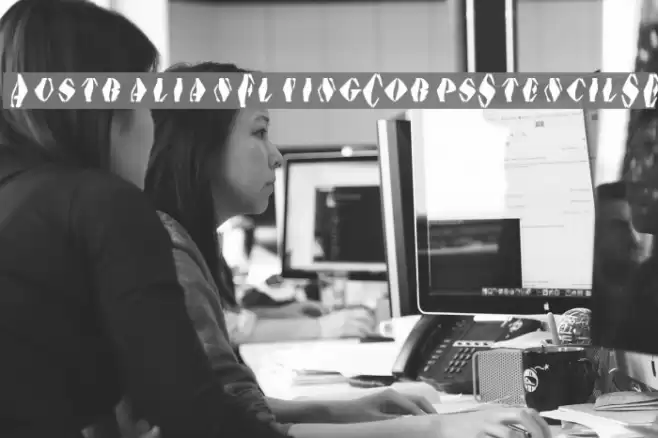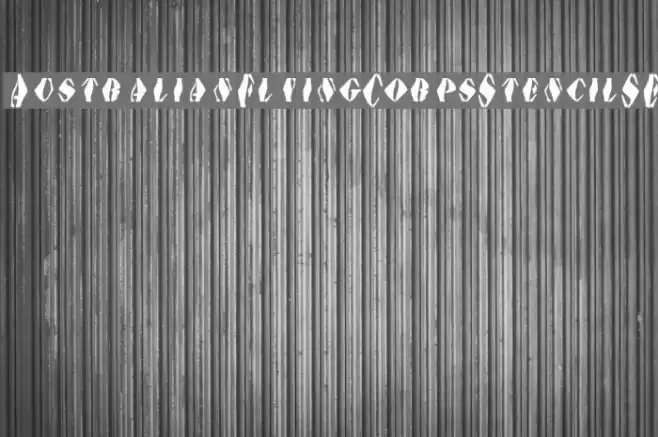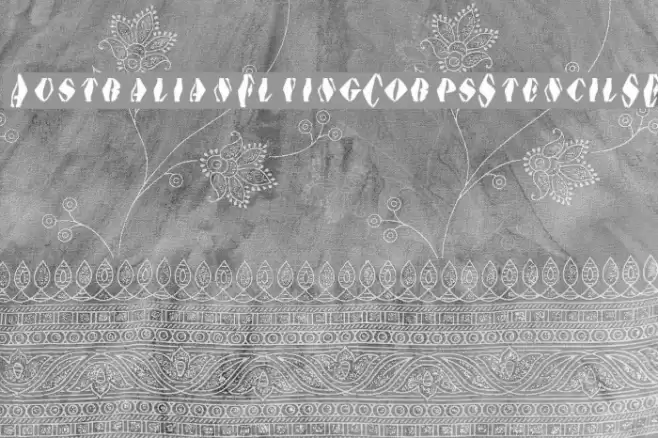
AustralianFlyingCorpsStencilSE Font
AustralianFlyingCorpsStencilSE Description
This font features a bold, stencil-like design with sharp, angular cuts and a distinct military aesthetic. Each character is crafted with precision, showcasing a unique blend of geometric shapes and negative space that creates a striking visual impact. The uppercase and lowercase letters maintain a consistent style, while the numerals and special characters complement the overall design. The font's boldness and distinct style make it ideal for projects that require a strong, authoritative presence. Its stencil characteristics suggest a utilitarian and industrial feel, reminiscent of military or aviation themes.
A bold, stencil-style font with a military and industrial aesthetic from Uncategorized fonts.
- Proposed Projects: Ideal for military-themed posters, industrial design projects, branding for outdoor gear, or any project requiring a bold, authoritative typeface.
- Overall Style: Industrial, Military